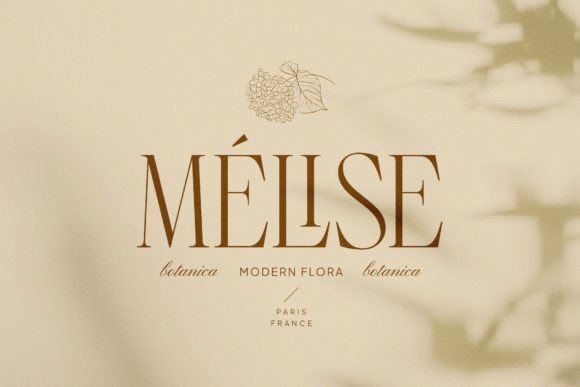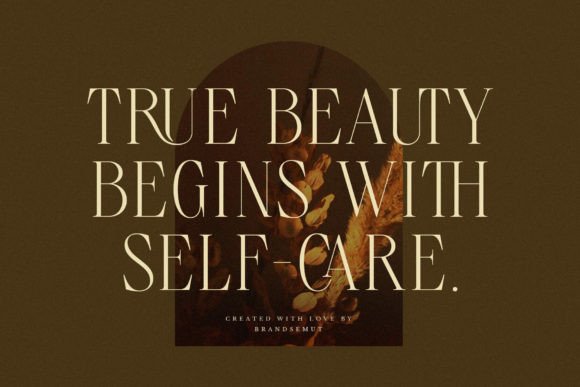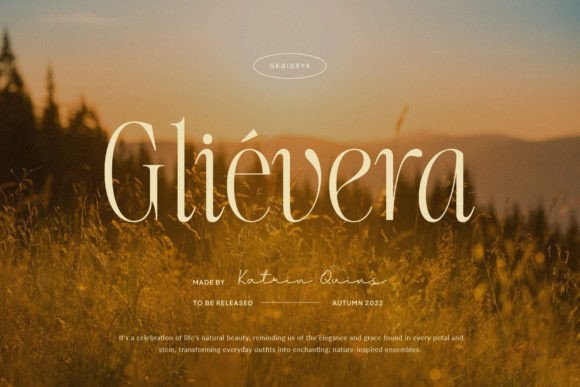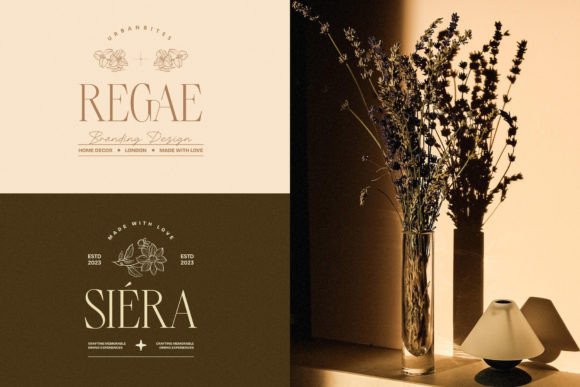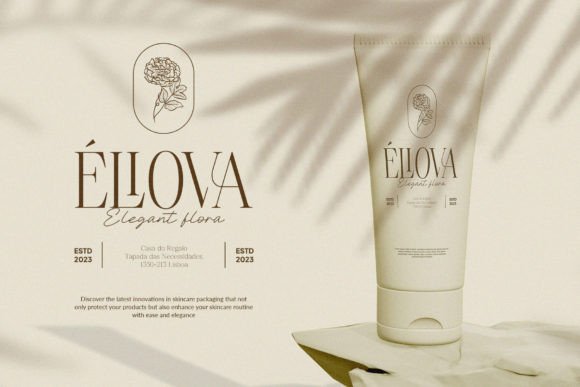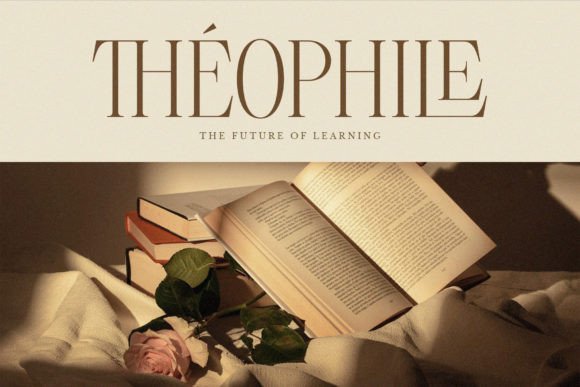
Introducing Gebissya Font: Elevate Your Designs with Elegance and Sophistication
In the world of typography, a font can make or break a design. For designers and crafters seeking to add a touch of elegance and class to their projects, Gebissya Font is an exceptional choice. This modern serif font is designed to impress, boasting clean lines, smooth curves, and a sophisticated aesthetic that lends itself perfectly to display use in headings, logos, branding, magazines, product packaging, and invitations.
What Makes Gebissya Stand Out?
Gebissya Font is not just another serif font; it’s a design statement. Its elegance and class are immediately apparent, making it an ideal choice for projects where making a strong visual impact is crucial. Whether you’re working on a luxury brand’s logo, a high-end product’s packaging, or a sophisticated magazine layout, Gebissya brings a level of refinement that’s hard to match.
Key Features of Gebissya Font
- Ligature and Alternates: Gebissya comes equipped with ligatures and many alternates, offering designers a wide range of typographic options. This feature allows for greater creativity and flexibility, enabling you to customize your text to fit your project’s specific needs and aesthetic.
- Clean Lines and Smooth Curves: The font’s design is characterized by clean lines and smooth curves, which contribute to its elegant and modern look. These features ensure that Gebissya can be used in a variety of contexts, from digital platforms to print materials, without losing its visual appeal.
- Versatility: Despite its elegant nature, Gebissya is surprisingly versatile. It can be used in various design projects, including but not limited to headings, logos, branding, magazines, product packaging, and invitations. This versatility makes Gebissya a valuable addition to any designer’s font library.
Using Gebissya in Your Designs
Incorporating Gebissya into your design workflow is straightforward. Its compatibility with various design software makes it easy to integrate into your projects. Here are a few suggestions on how to make the most of Gebissya:
- Headings and Titles: Use Gebissya to create stunning headings and titles that capture attention and convey a sense of luxury and sophistication.
- Branding and Logos: For brands looking to establish a high-end image, Gebissya can be a crucial element in logo design, providing an elegant and memorable brand identifier.
- Magazines and Publications: Elevate your magazine or publication with Gebissya’s refined aesthetic, making it perfect for cover titles, section headings, and feature articles.
- Product Packaging: Stand out on store shelves with product packaging that features Gebissya, adding a touch of class and sophistication to your product’s presentation.
- Invitations and Announcements: Make your invitations, announcements, or greeting cards more special with Gebissya, ensuring they leave a lasting impression on recipients.
Gebissya Font is a powerful tool for designers and crafters aiming to infuse their projects with elegance, class, and a modern edge. Its combination of ligatures, alternates, clean lines, and smooth curves makes it an exceptional choice for a wide range of design applications. By incorporating Gebissya into your design repertoire, you’ll be well-equipped to create visually stunning projects that stand out and leave a lasting impression.
Whether you’re a seasoned designer or a crafting enthusiast, Gebissya Font is sure to elevate your designs to new heights of sophistication and style. Explore the possibilities with Gebissya today and discover how this elegant, classy, and modern serif font can transform your projects.